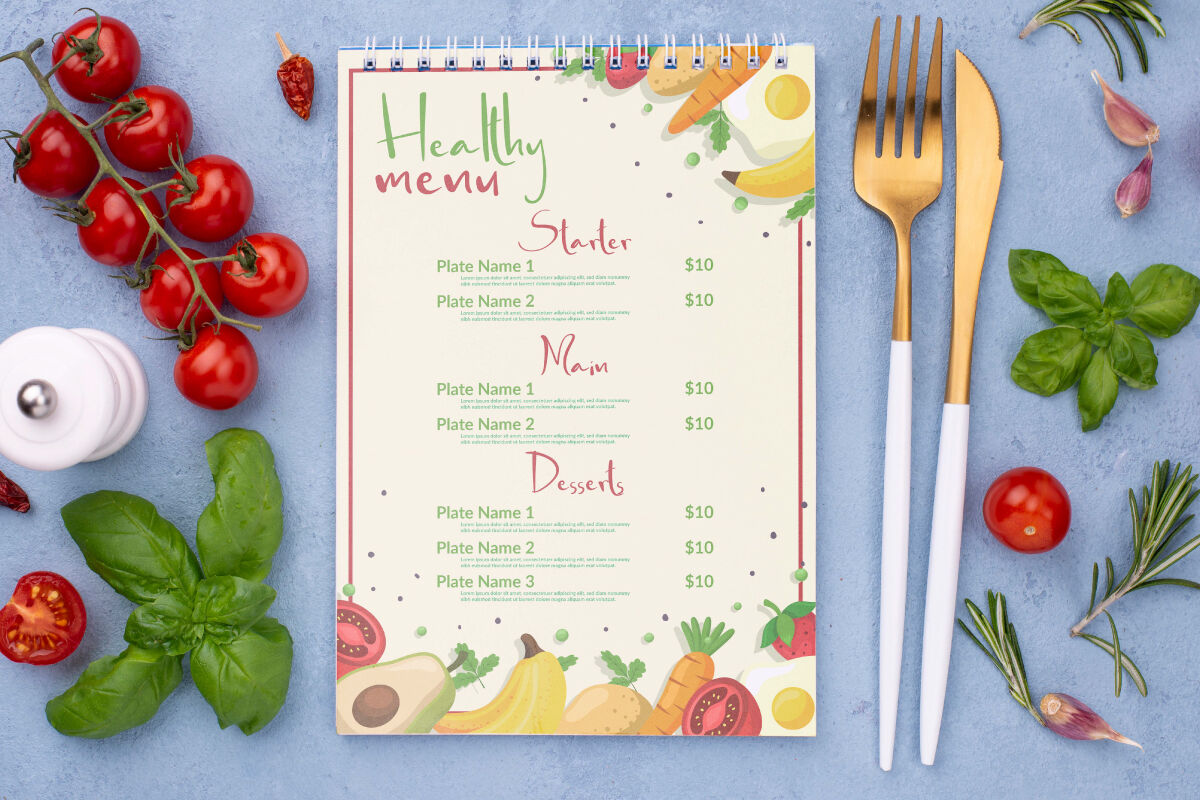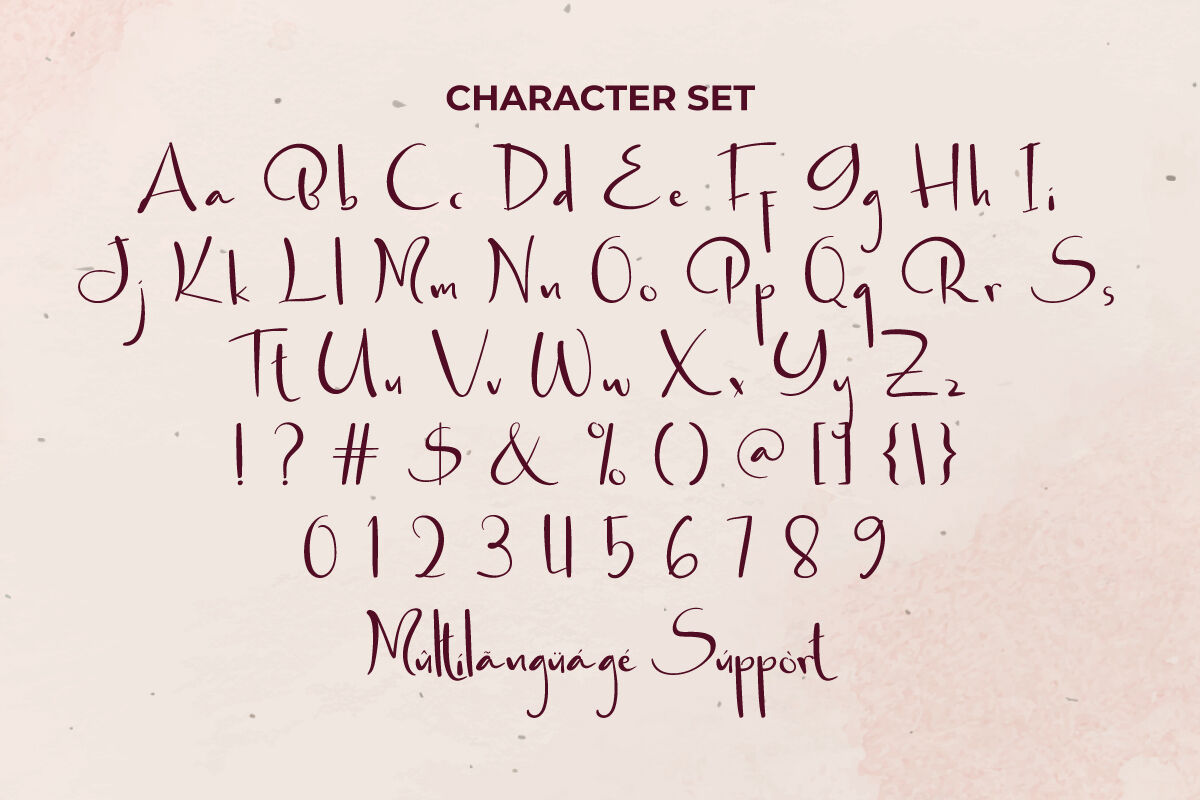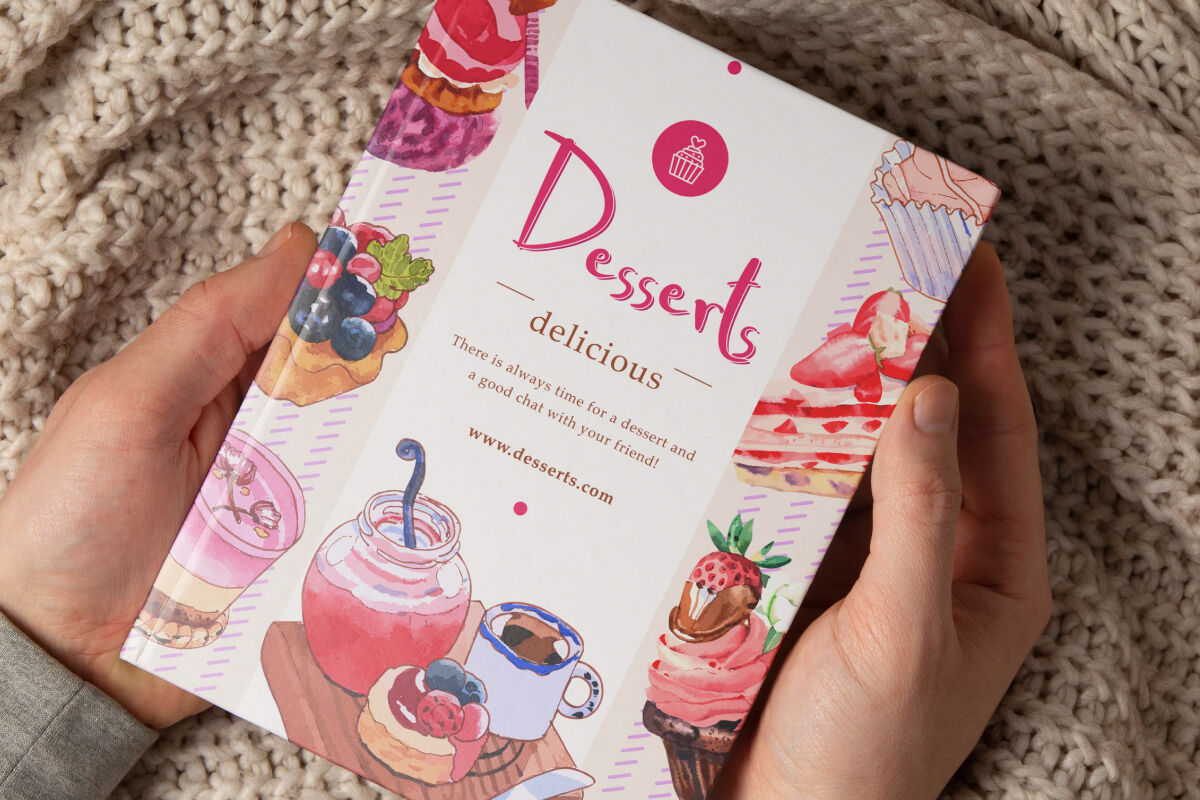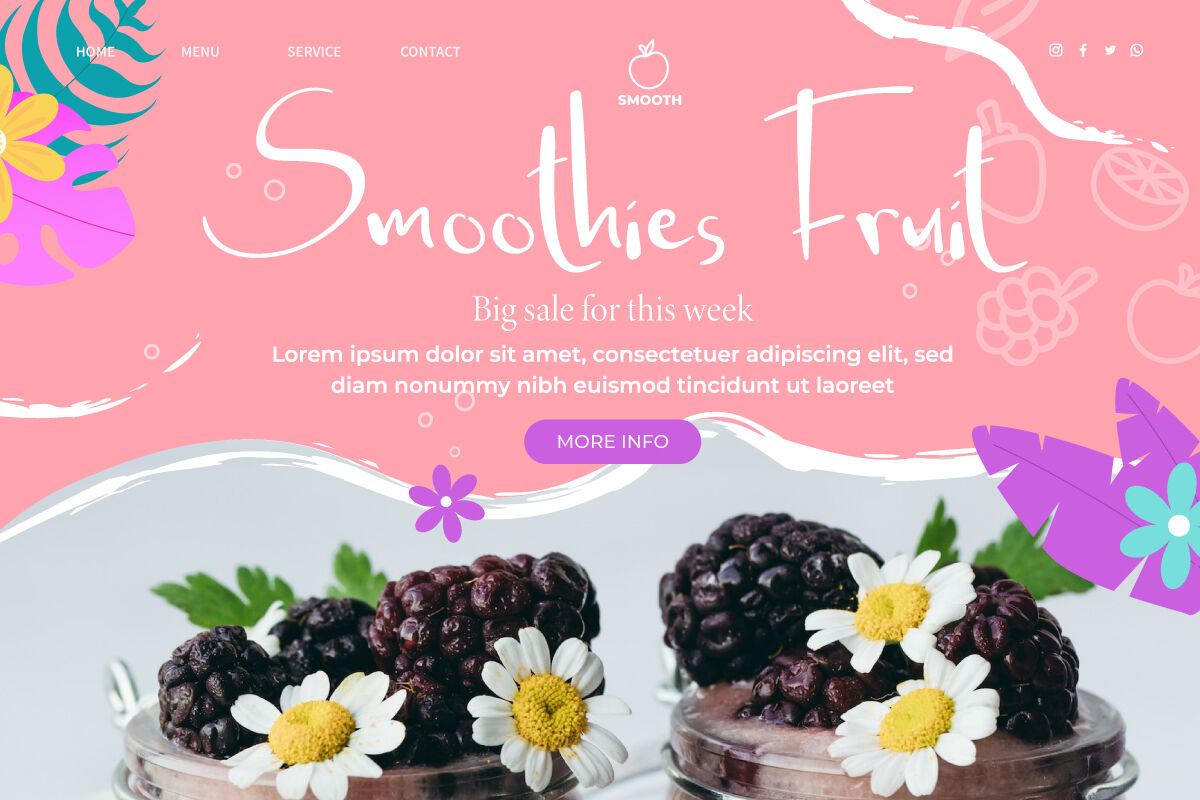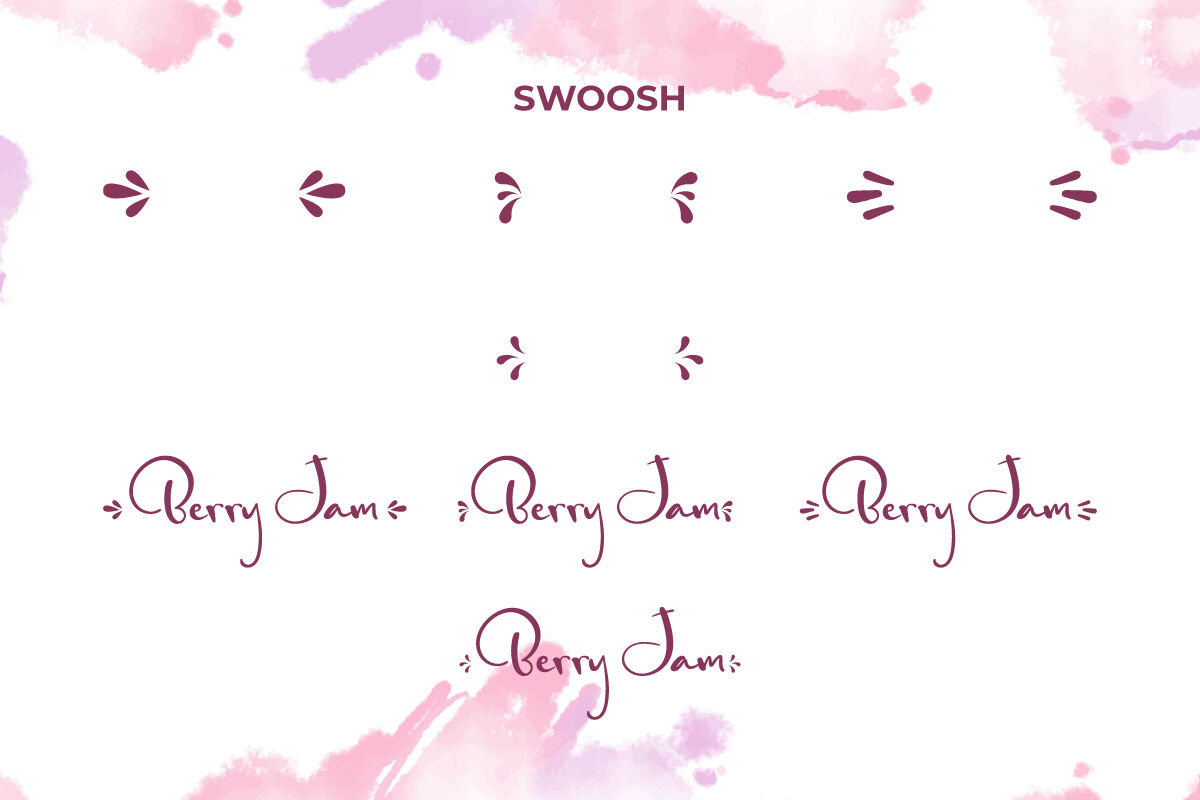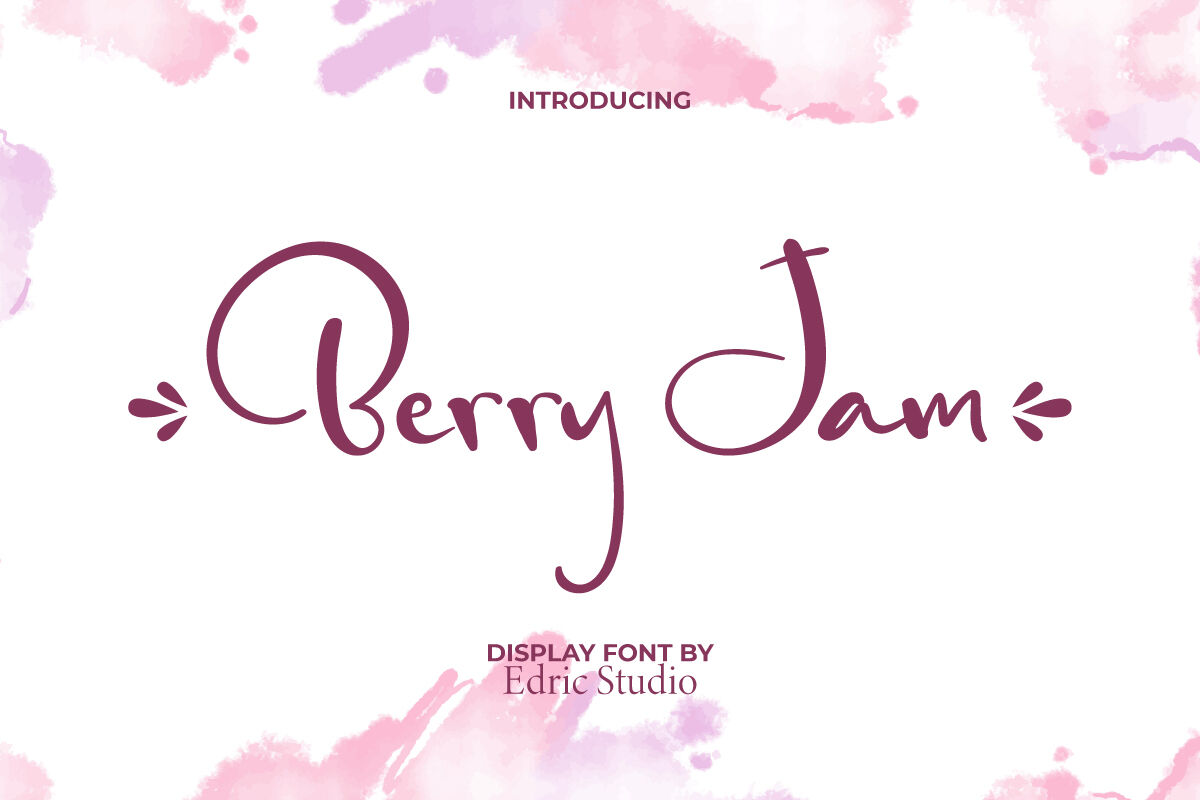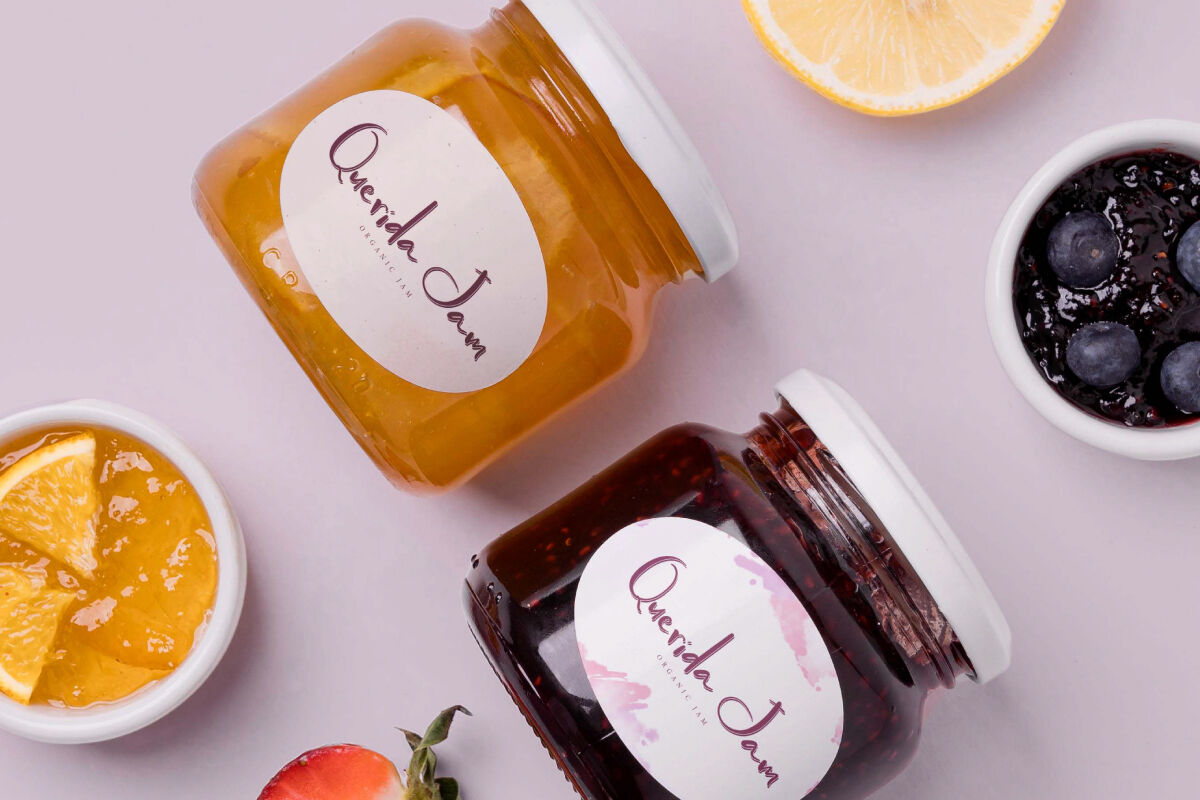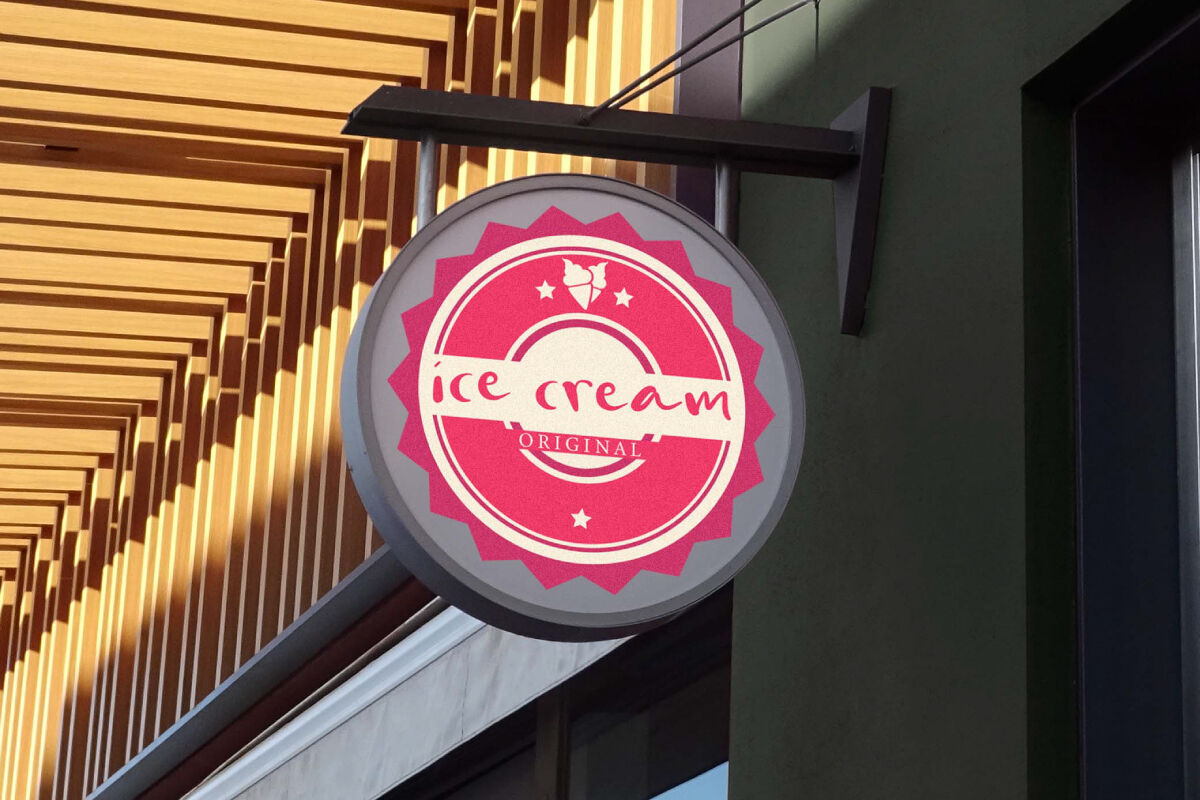
Berry Jam Font is a sweet fruity beautiful calligraphic script font made from an authentic handwritten style. It brings a bright and cheerful feel to its appearance, guaranteed to add a suitable appeal to your brand images, heading, label, logo design, menu flyer, product packaging, quotes, signage, social media posts, title, website, and more.
Introducing Berry Jam Calligraphy Font – a sweet, elegant, and handcrafted typeface that captures the beauty of modern calligraphy. With its graceful curves, flowing strokes, and natural handwritten style, this font is designed to bring warmth, sophistication, and charm to your creative projects.
Perfect for wedding invitations, branding, greeting cards, product packaging, social media posts, or inspirational quotes, Berry Jam Calligraphy Font adds a personal and stylish touch to every design. Its delicate details create a romantic and timeless look that instantly elevates your work.
Berry Jam Calligraphy Font comes with a full set of Uppercase and Lowercase letters, Number, Punctuation and Symbol. Also the addition of swoosh elements will beautify this font. The simple yet elegant lettering characters will add a casual, cool and sweet human touch to any design. It’s ideal for advertisement, café, graphic design, pastry chef, planters, restaurant, sweet food business, and others.